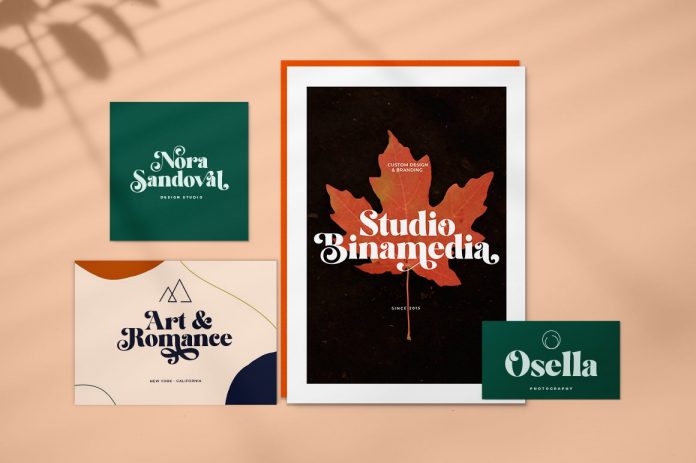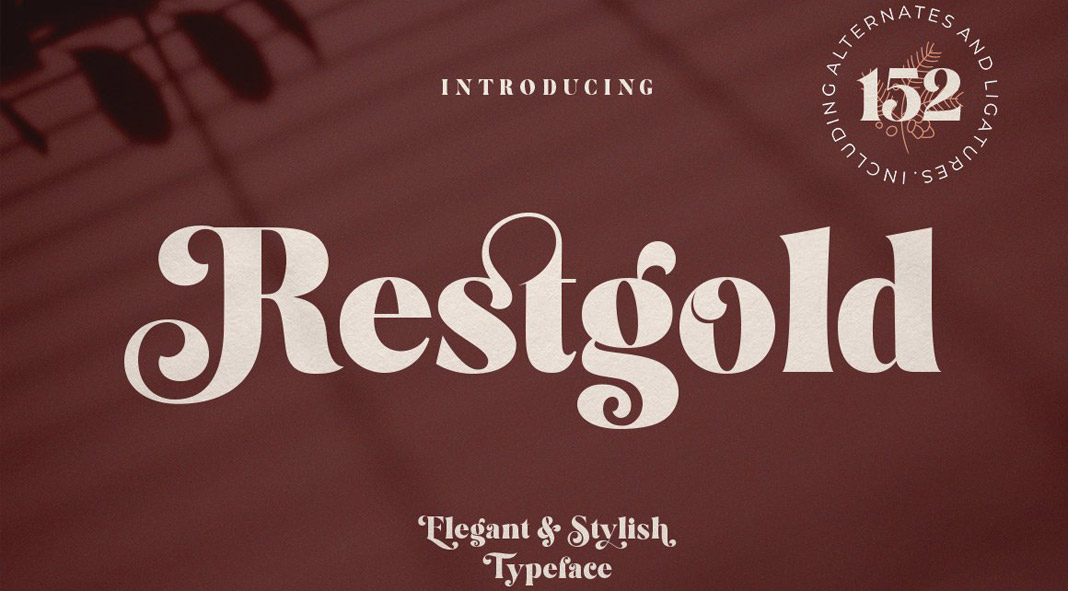
Restgold, a high-contrast serif font made for eye-catching yet elegant typography.
Recently published by Great Studio, the Restgold font is based on an elegant serif typeface that is well suited for a variety of typographic projects such as logo designs, wedding invitations, advertisements, packaging design, labels, posters, stationery, etc. The extensive set of alternates comes with stylish swashes, over 350 glyphs, and 16 ligatures. The Restgold font is currently available as a discounted introductory offer at Creative Market (only for a limited time). To learn more, just click on the following link or have a look at the images below.